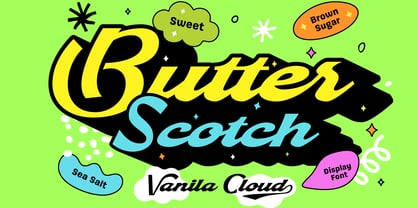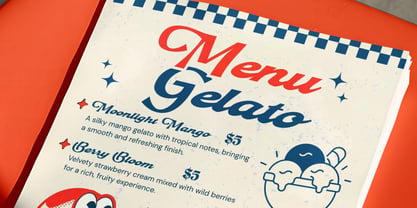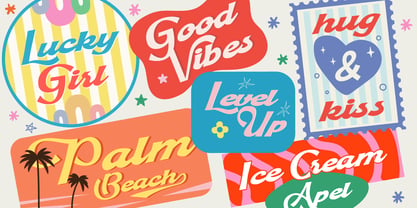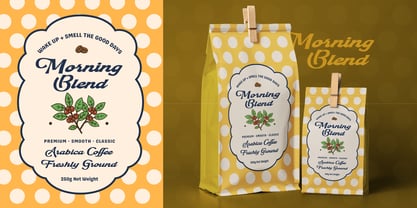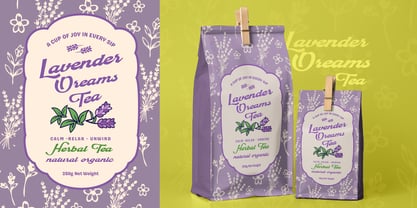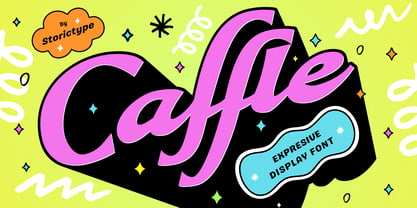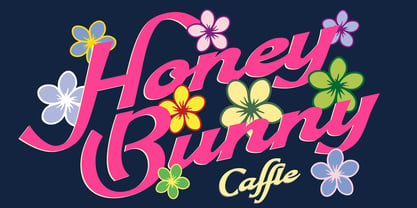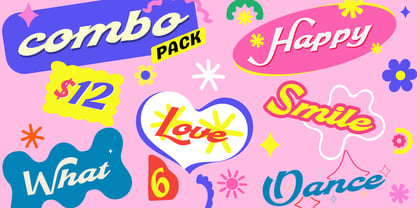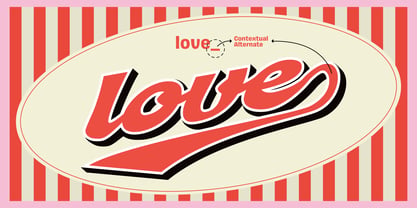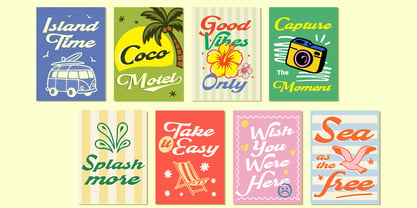
Caffle
The Caffle Font Family was designed by panji nugroho and published by Storictype. Caffle contains 1 styles. More about this family
Caffle – Playful & Expressive Display Font
Meet Caffle, a bold and playful display font designed to make your words impossible to ignore! ✨ With its expressive curves, quirky shapes, and fun personality, Caffle brings a cheerful and energetic touch to every design.
Perfect for creating eye-catching headlines, logos, posters, packaging, branding, social media graphics, stickers, apparel, invitations, and more. Its unique display style works especially well for projects that need a youthful, creative, and slightly quirky visual character.
Caffle is made for designers who love typography with personality. Whether you're working on a fun brand identity, a colorful campaign, a playful packaging concept, or a statement poster, Caffle is ready to add that extra spark.
Let your typography speak louder with Caffle — bold, expressive, playful, and full of character! 💖✨